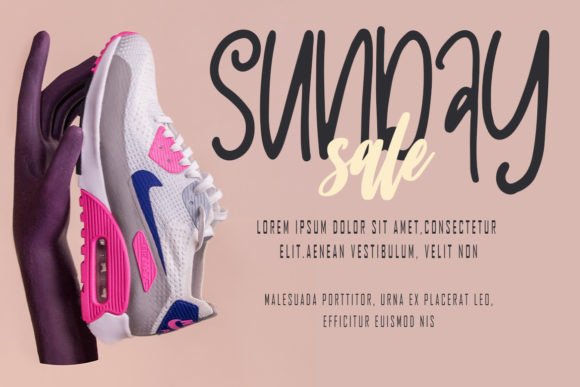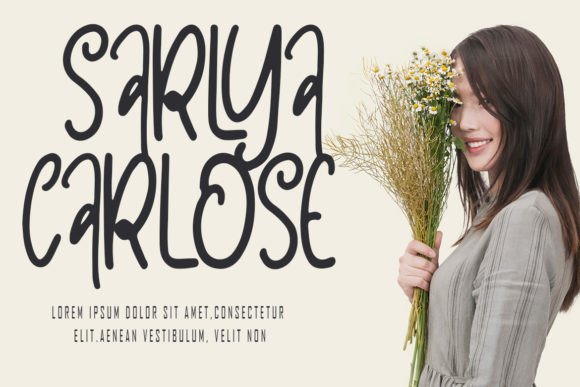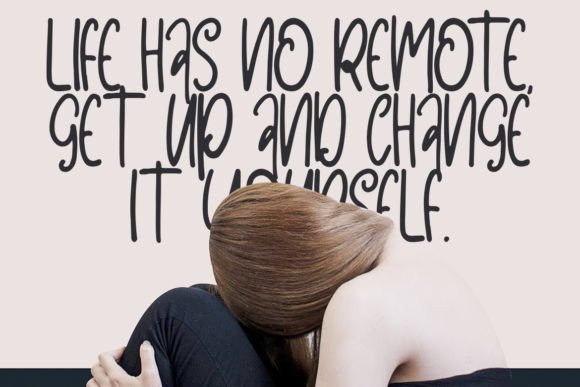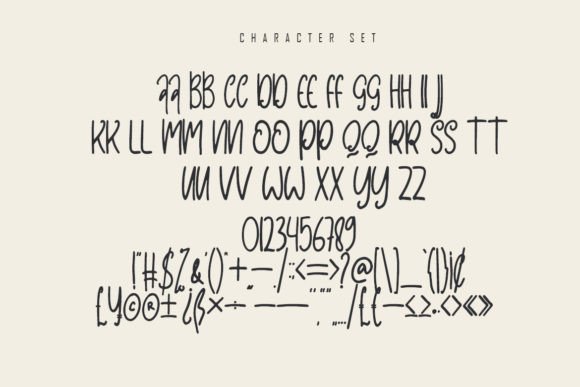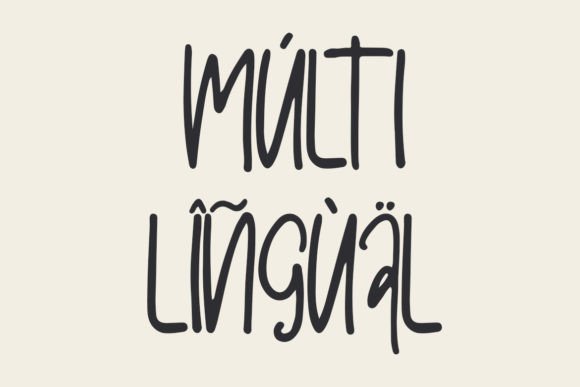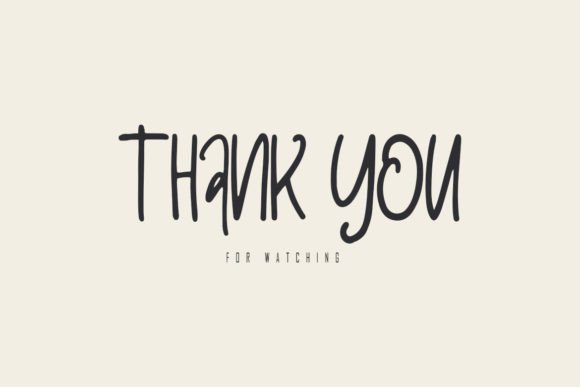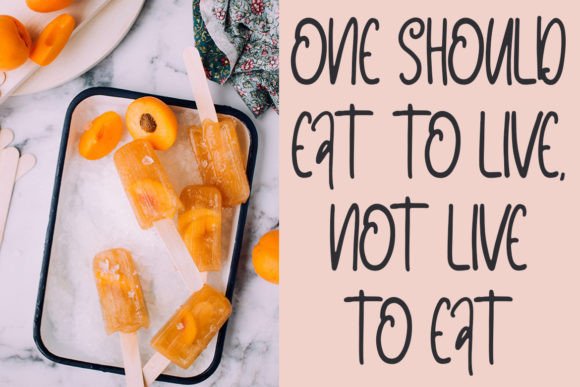
Phonesa Font
About Phonesa Font: A Playful and Versatile Handwritten Typeface
Discover Phonesa, a charming handwritten font that brings a breath of fresh air to your design projects. This delightful typeface strikes the perfect balance between playfulness and practicality, making it an invaluable asset for designers across various fields.
The Essence of Phonesa: Whimsy Meets Versatility
Phonesa stands out in the typography world with its unique blend of whimsical character and remarkable versatility. Each letterform exudes personality, capturing the spontaneity and warmth of genuine handwriting. This font’s playful nature doesn’t compromise its readability, ensuring it remains suitable for a wide range of applications.
Key Features of Phonesa:
• Playful and whimsical design
• Incredibly versatile for various projects
• Youthful energy that brightens designs
• Natural, handwritten appearance
• Excellent readability despite its casual style
Brightening Your Designs with Phonesa
True to its description, Phonesa has an innate ability to illuminate and enliven any design it graces. Its youthful energy and cheerful character bring a sense of optimism and approachability to your work, making it particularly effective for:
• Branding materials for vibrant, energetic companies
• Social media graphics and digital content
• Packaging designs targeting younger demographics
• Greeting cards and personal stationery
• Book covers and illustrations, especially for children’s literature
• Informal invitations and announcements
Versatility in Action
Phonesa’s versatility shines through its ability to adapt to various design contexts. Whether you’re crafting a logo, designing a website header, or creating engaging social media content, this font effortlessly fits the bill. Its youthful spirit doesn’t limit its use to only casual projects; when applied thoughtfully, Phonesa can add a touch of approachable charm to more formal designs as well.
Conclusion: Elevate Your Designs with Phonesa
In conclusion, Phonesa is more than just a font; it’s a creative tool that empowers designers to infuse their work with personality and charm. Its unique blend of playfulness, versatility, and youthful energy makes it an essential addition to any designer’s toolkit. By incorporating Phonesa into your projects, you’ll not only brighten your designs but also create more engaging, memorable, and emotionally resonant visual communications.
Embrace the joyful spirit of Phonesa and watch as your designs come alive with its vibrant, handwritten allure. Whether you’re working on branding, packaging, digital content, or personal projects, Phonesa offers the perfect balance of whimsy and readability to make your work truly stand out in today’s competitive visual landscape.